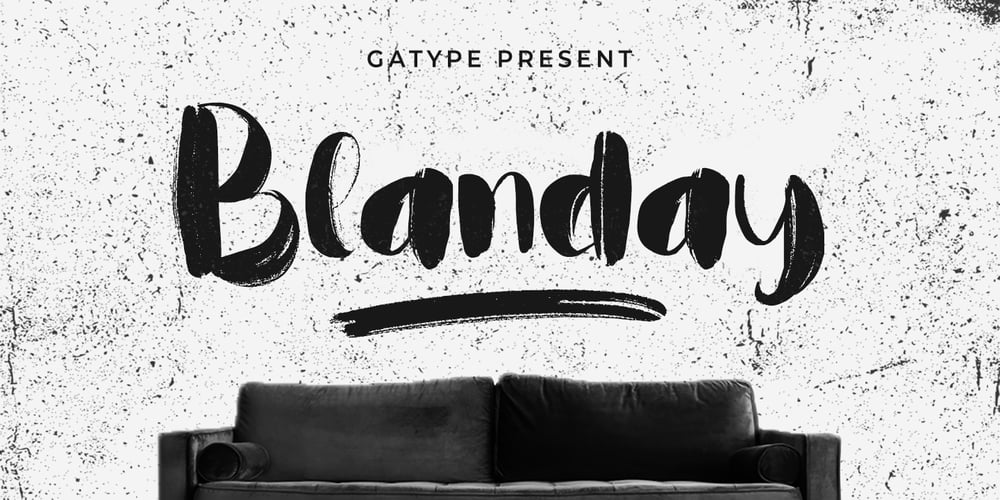
Blanday Font Family was designed by khaidir and published by Gatype. Blanday contains 1 styles and family package options. Blanday is a really cool handcrafted brush font deliberately created with a natural texture finish, it is perfect for invitations, brand projects, logos, greeting cards, news, web, product packaging, posters, blogs, everything including personal charm, etc.